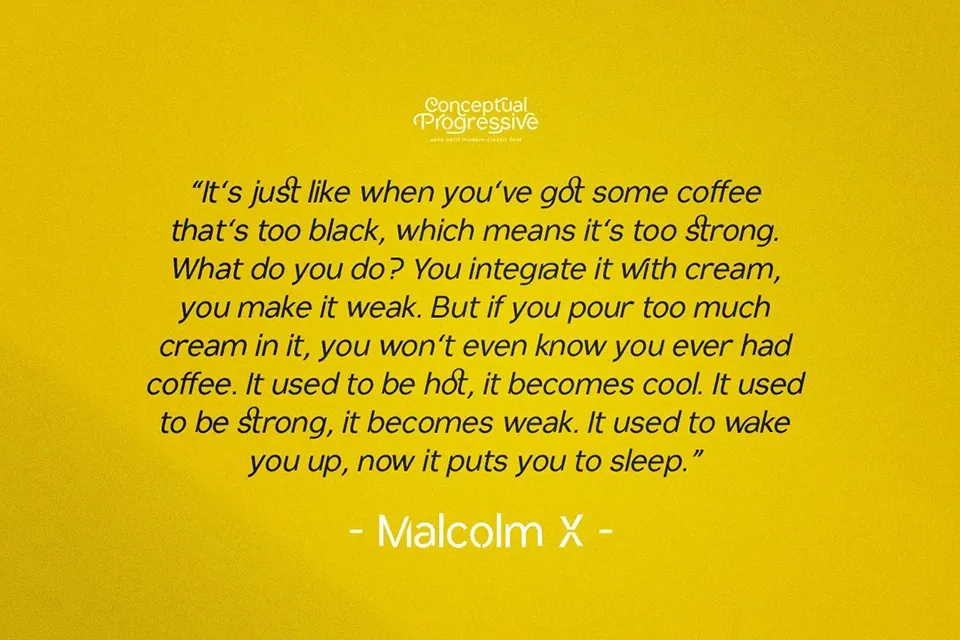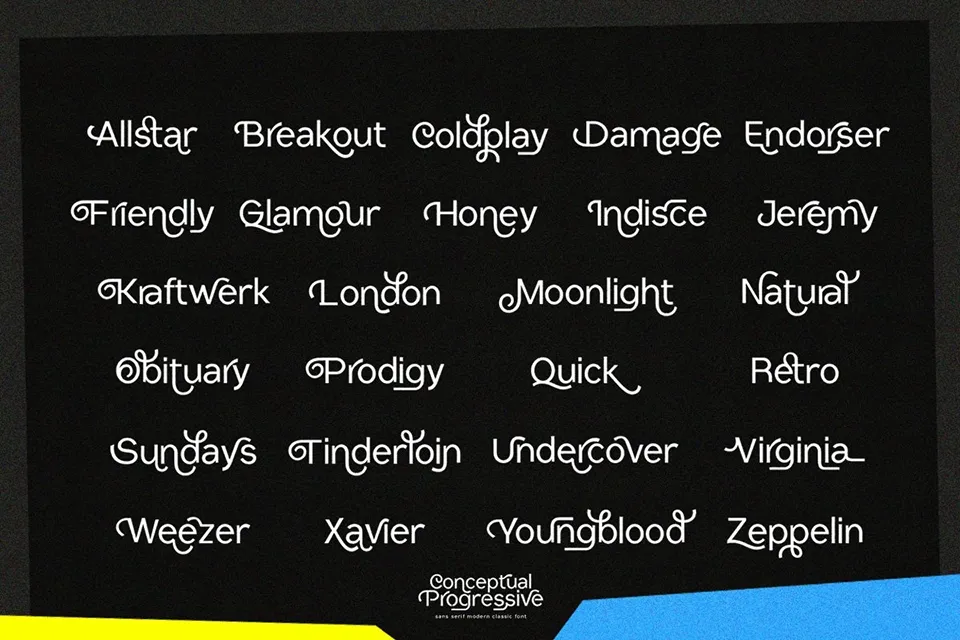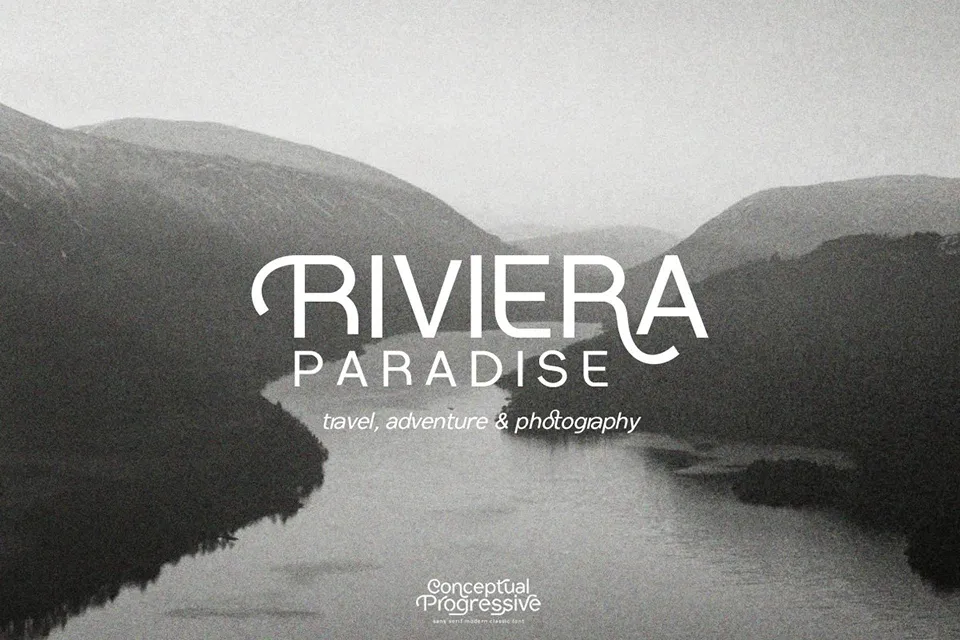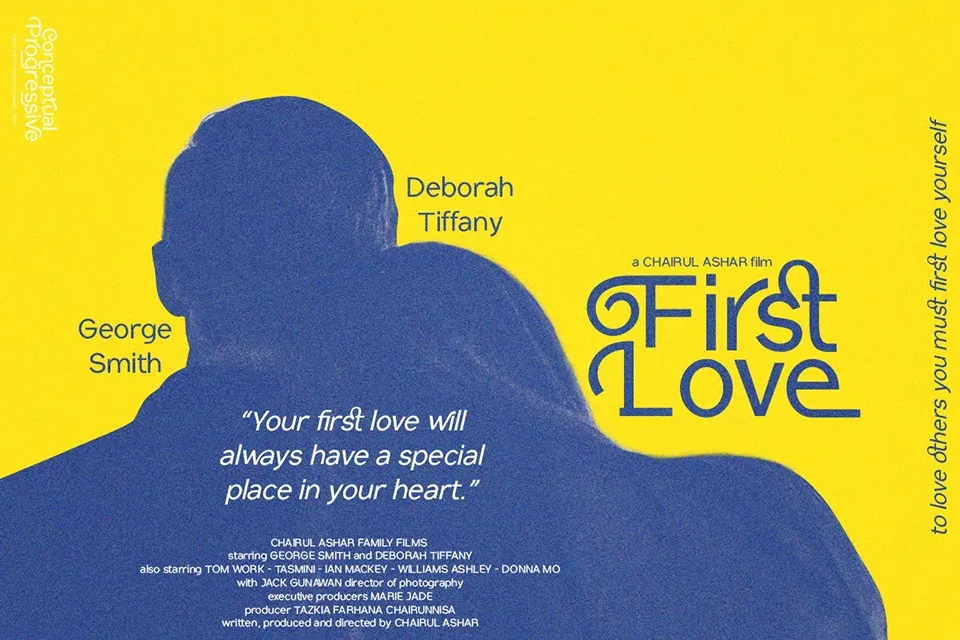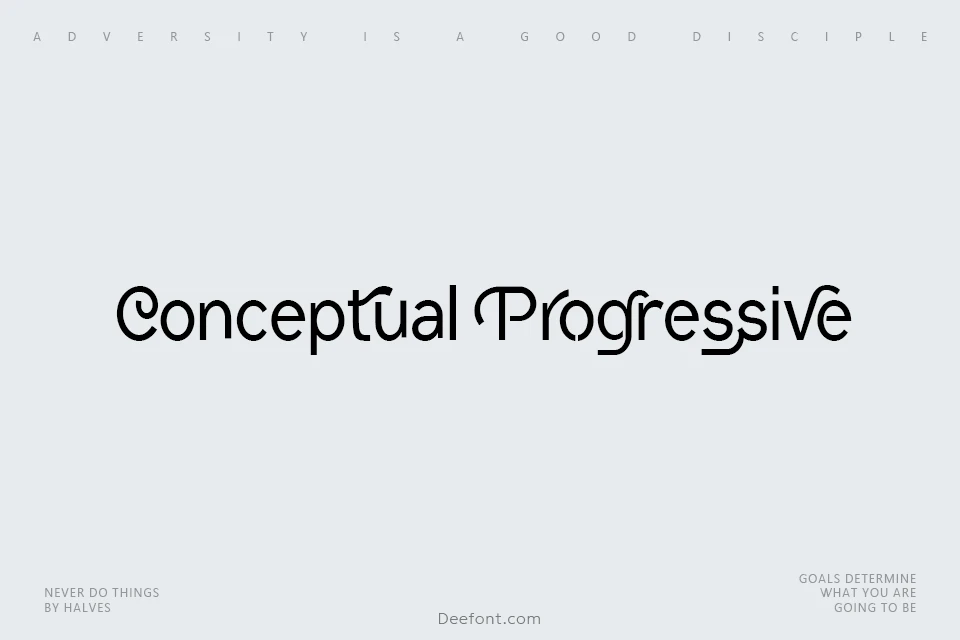
Conceptual Progressive Font
Conceptual Progressive Font is a sans-serif modern classic font presented by HIRO. This typeface balances contemporary design with timeless appeal, featuring clean lines and distinctive character shapes. It offers versatility with four distinct styles: Regular, Regular Slant, Stencil, and Stencil Slant. With 484 glyphs included, Conceptual Progressive provides ample creative options. It’s ideal for branding, headlines, posters, and any project seeking a unique yet readable sans-serif font with a progressive edge. Its blend of classic structure and modern flair makes it a standout choice for impactful visual communication.